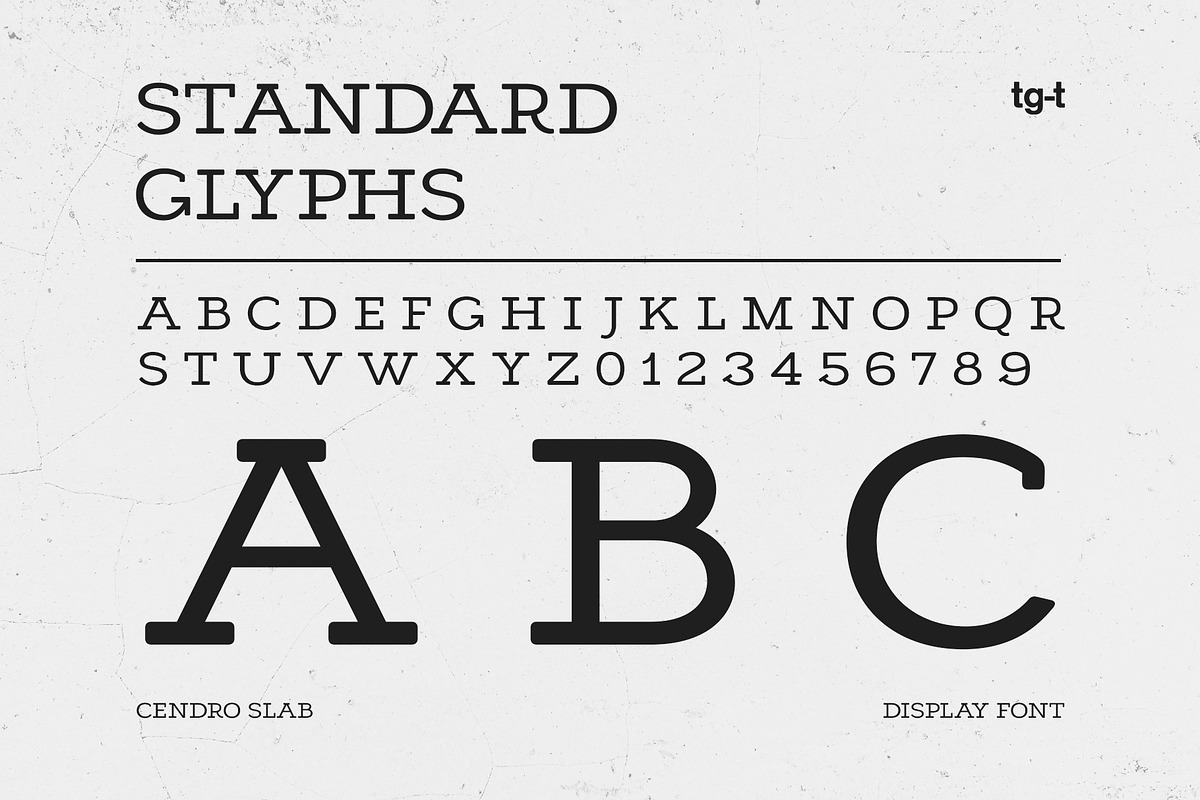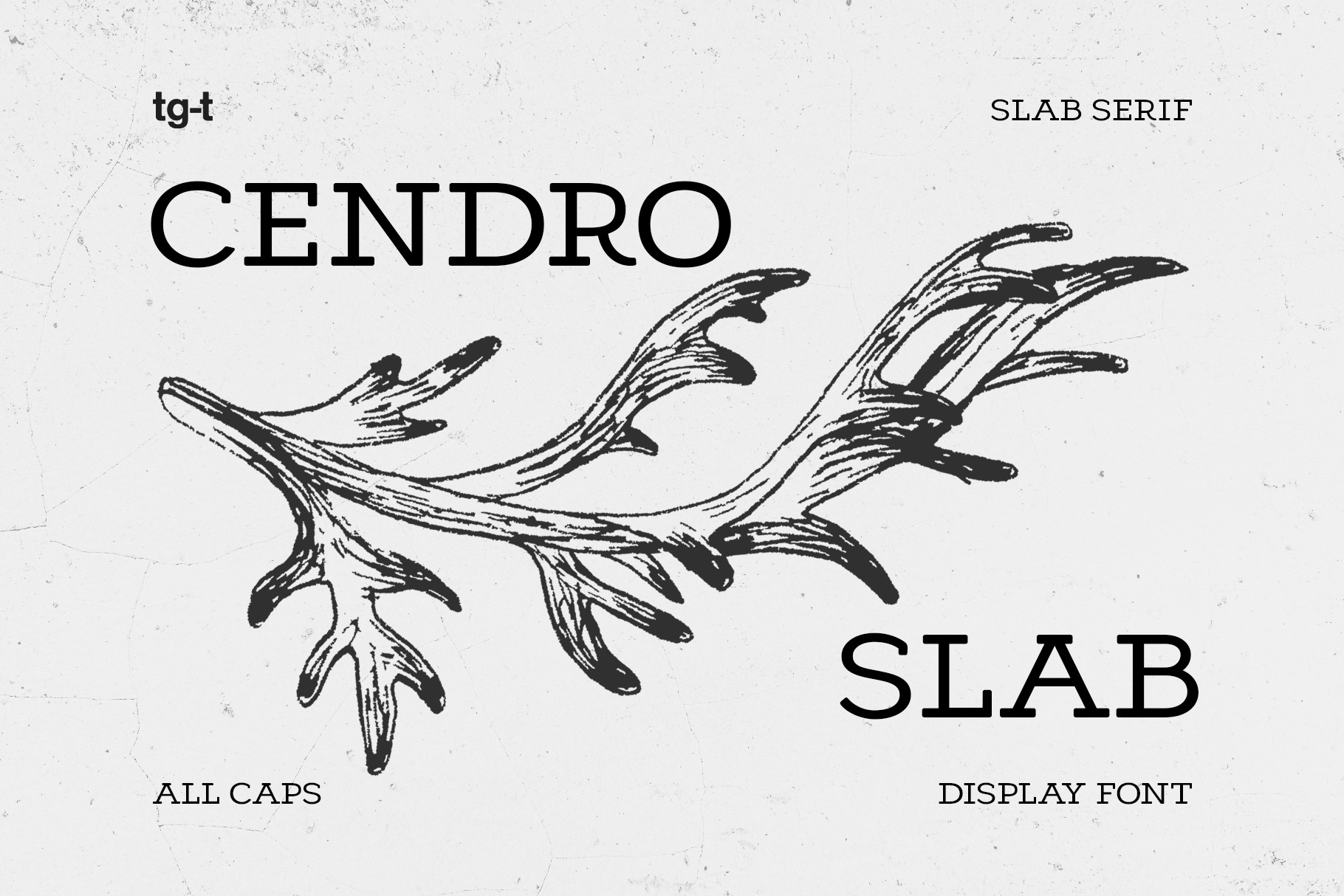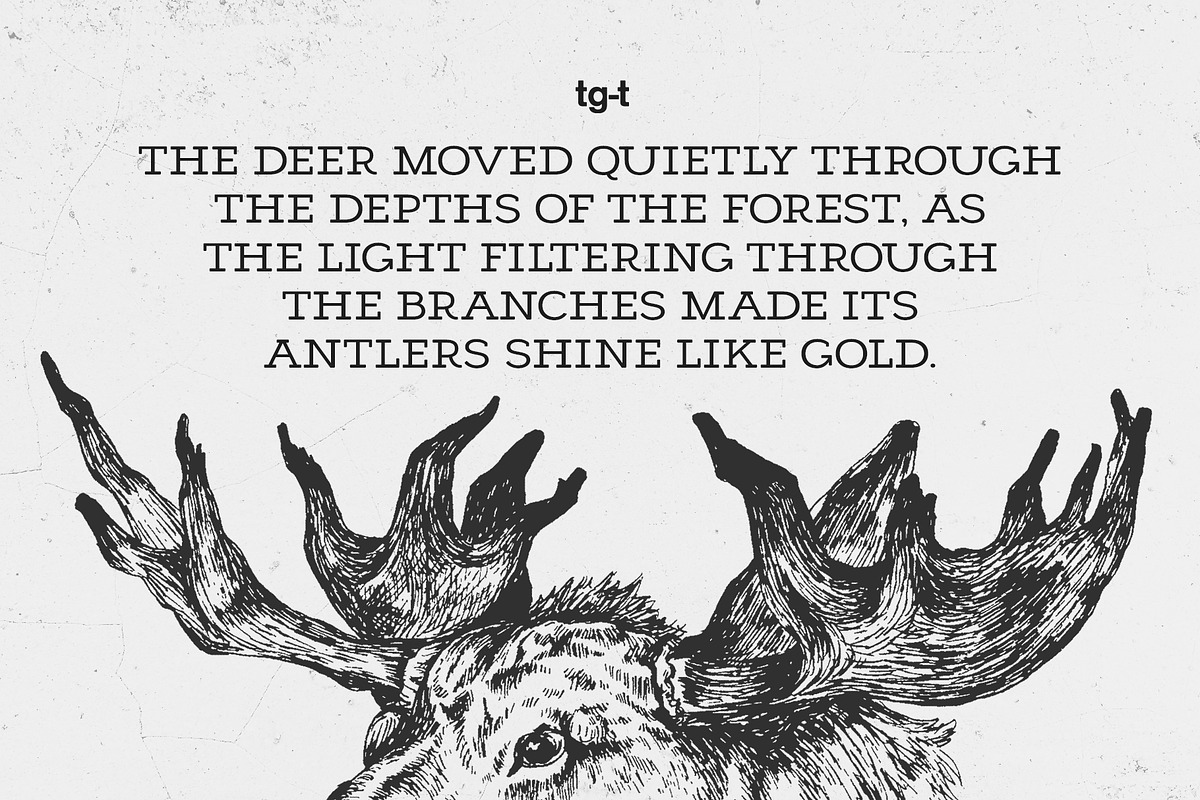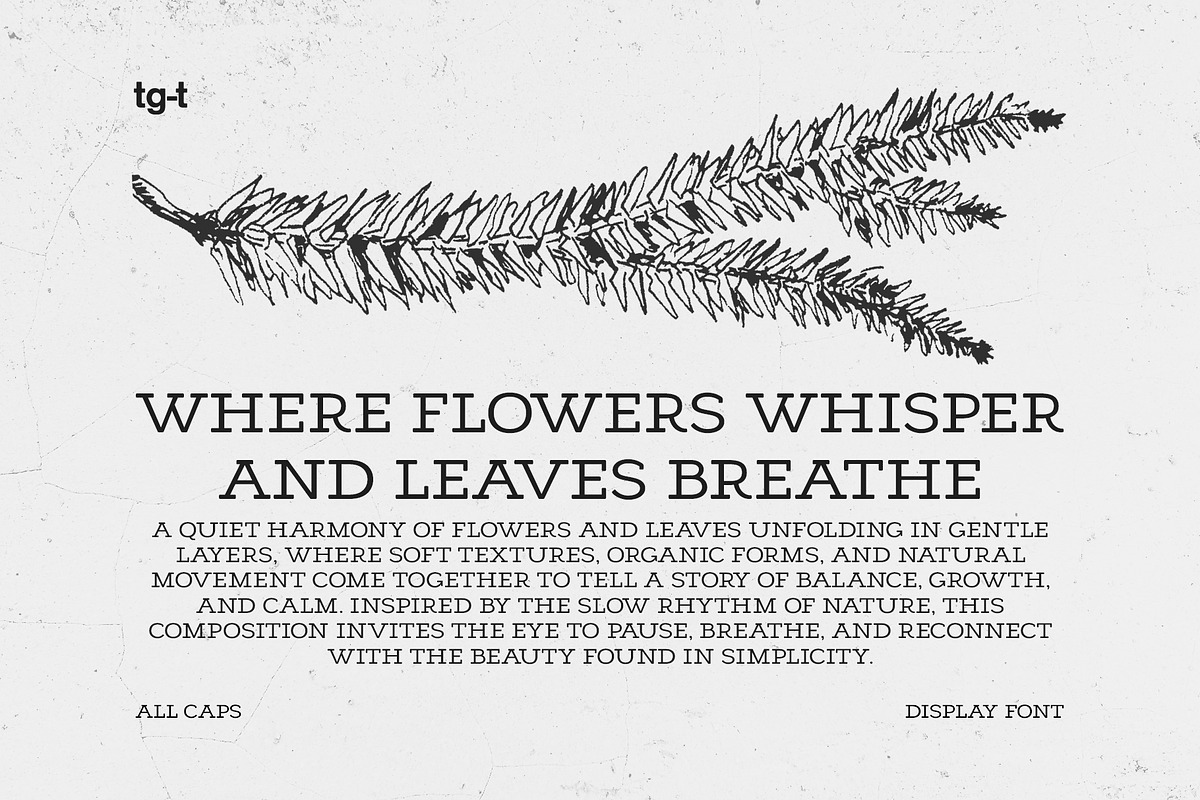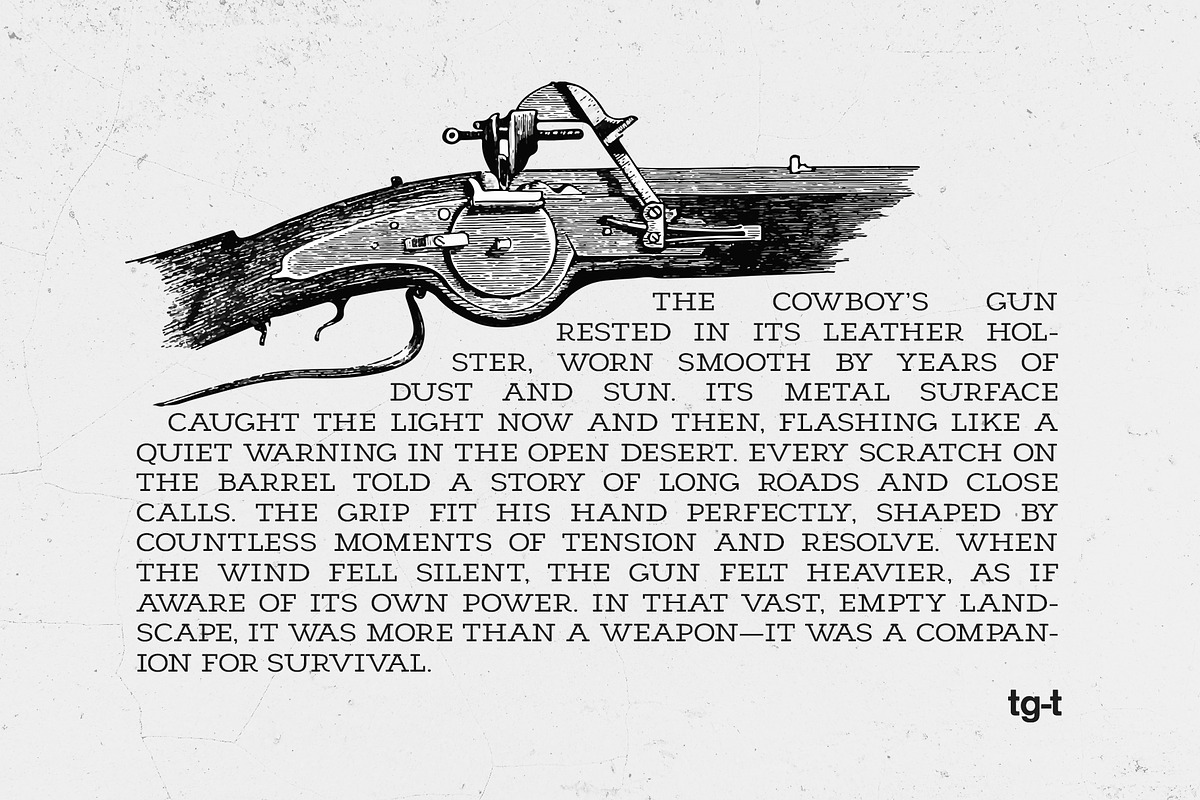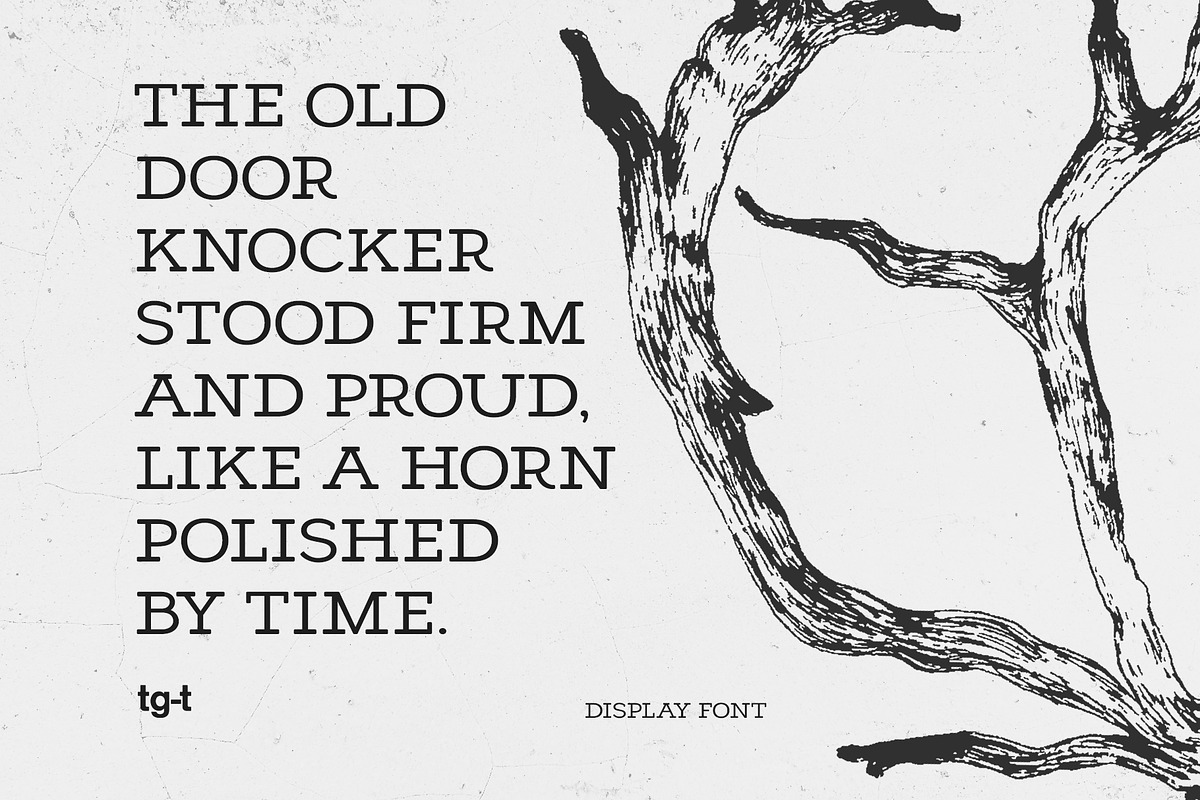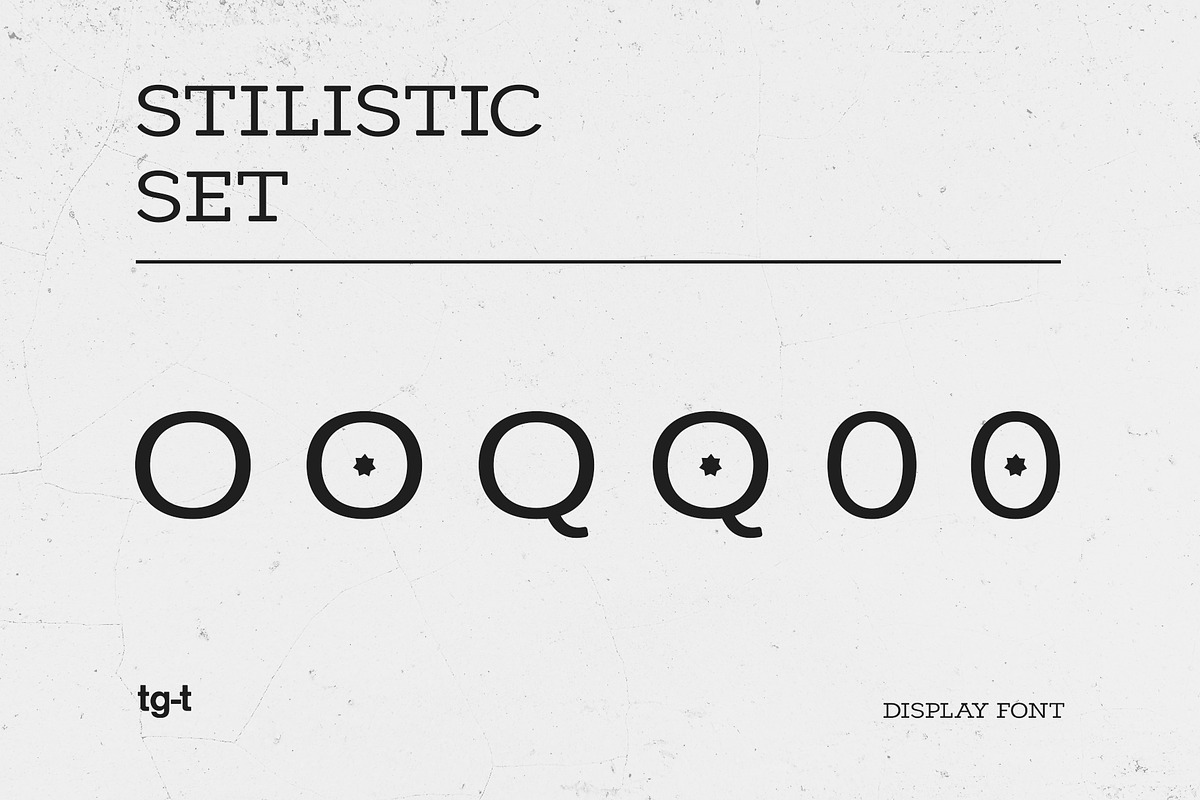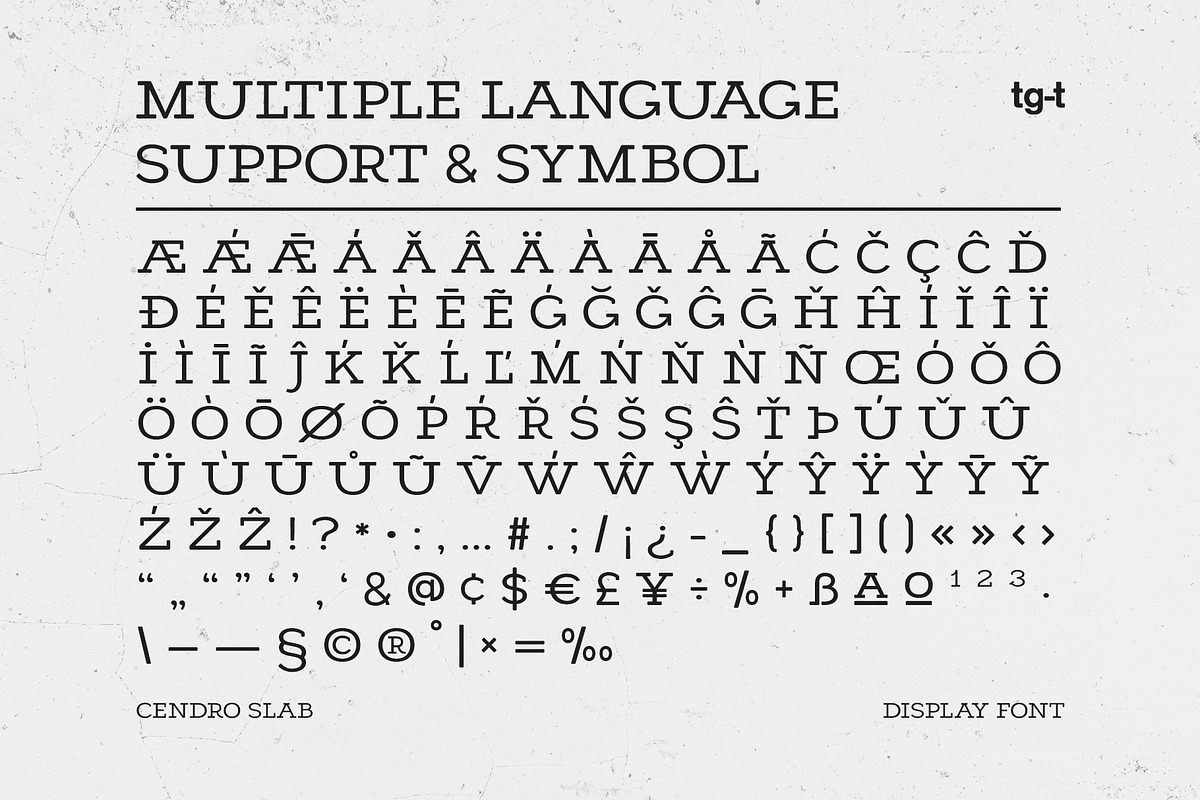
Cendro Slab - Slab Serif Font
Cendro Slab is a bold, uppercase slab serif display typeface designed to create a strong visual impact in design projects. With its clean structure, sturdy serifs, and balanced proportions, it is perfect for headlines, branding, posters, logos, packaging, and social media graphics. The font includes an extended Latin character set, numbers, punctuation marks, currency symbols, and stylistic alternatives, making it suitable for international use and high-impact typography. If you're looking for a bold headline font or an uppercase serif font that stands out in both digital and print designs, Cendro Slab is a reliable and versatile choice.
Multilingual Support: Extensive character set including accented letters for Western and European languages.
Full Glyphs: Includes numerals, punctuation, and mathematical symbols.